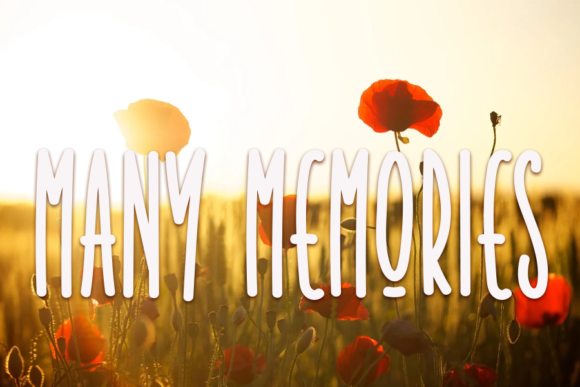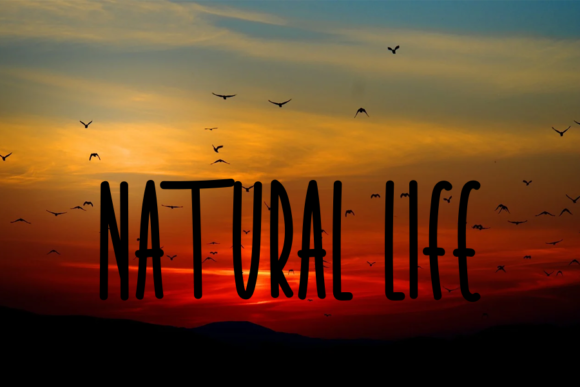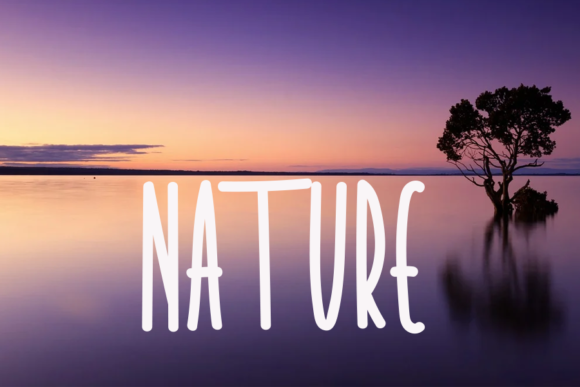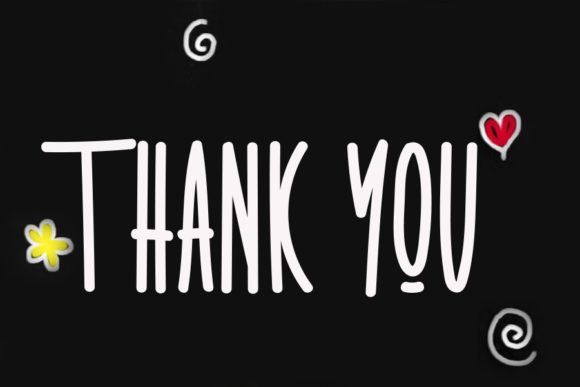
Introducing Happy Love Font: The Perfect Choice for Crafty Designs
Are you a designer or crafter looking for a unique and versatile font to elevate your creative projects? Look no further than Happy Love Font, a simple and natural display font that’s perfect for a wide range of applications. In this article, we’ll take a closer look at the Happy Love Font, its features, and how it can be used to add a touch of personality to your designs.
What is Happy Love Font?
Happy Love Font is a beautifully crafted display font that’s designed to add a touch of warmth and elegance to your designs. With its simple and natural look, this font is perfect for crafty ideas, from letterheads and titles to stationery and more. The font’s original look is sure to appeal to a wide range of designers and crafters, making it a great addition to any creative project.
Key Features of Happy Love Font
So, what makes Happy Love Font so special? Here are just a few of its key features:
- Simple and Natural Look: Happy Love Font has a simple and natural look that’s perfect for designs that require a touch of elegance and sophistication.
- Versatile: This font is versatile and can be used for a wide range of applications, from letterheads and titles to stationery and more.
- Crafty Ideas: Happy Love Font is perfect for crafty ideas, such as DIY projects, handmade cards, and other creative endeavors.
How to Use Happy Love Font
Happy Love Font is easy to use and can be incorporated into a wide range of designs. Here are just a few ideas to get you started:
- Letterheads and Titles: Use Happy Love Font to create beautiful letterheads and titles that add a touch of elegance to your designs.
- Stationery: Add a personal touch to your stationery with Happy Love Font, perfect for handmade cards, invitations, and more.
- DIY Projects: Use Happy Love Font to add a touch of personality to your DIY projects, such as crafts, scrapbooking, and more.
- Branding: Happy Love Font can also be used for branding, such as logos, business cards, and more.
Why Choose Happy Love Font?
So, why choose Happy Love Font for your designs? Here are just a few reasons:
- Unique and Original: Happy Love Font has a unique and original look that’s sure to stand out from the crowd.
- Easy to Use: The font is easy to use and can be incorporated into a wide range of designs.
- Versatile: Happy Love Font is versatile and can be used for a wide range of applications.
- High-Quality: The font is high-quality and is sure to add a touch of elegance and sophistication to your designs.
In conclusion, Happy Love Font is a beautiful and versatile display font that’s perfect for designers and crafters looking to add a touch of personality to their designs. With its simple and natural look, this font is sure to appeal to a wide range of creative projects, from letterheads and titles to stationery and more. Whether you’re a seasoned designer or a crafty DIY enthusiast, Happy Love Font is a great choice for any project.